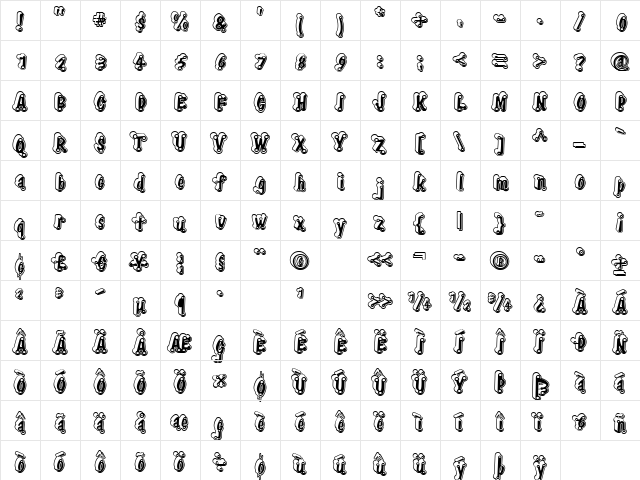
ElliottsTyphpoidMThrDDark Regular Font Preview
ElliottsTyphpoidMThrDDark Regular
ElliottsTyphpoidMThrDDark Regular Font Details
| Foundry | Emigre Inc. |
| Designer | Elliott Peter Earls |
Design Context for ElliottsTyphpoidMThrDDark Typeface
ElliottsTyphpoidMThrDDark is a composed and adaptable typeface that performs quietly and consistently across a wide range of design contexts.